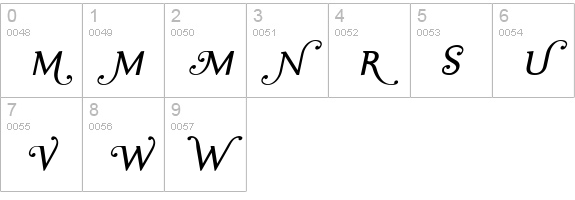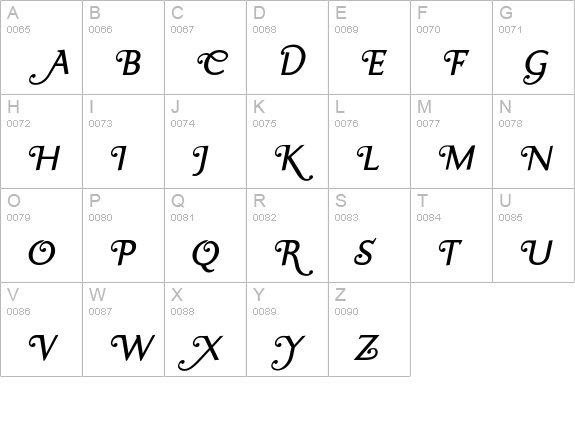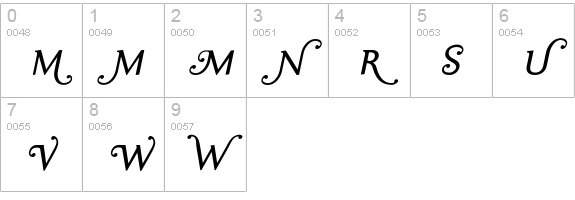
Ela Swashes Plain Italic PDF Font Details
Ela Swashes Plain Italic PDF is a distinctive, italic variant in the Ela typeface family \xE2\x80\x94 well suited to design and typography projects.
Ela Swashes Plain Italic PDF font is a beautifully designed typeface that exudes elegance and sophistication. Its delicate swashes and graceful curves make it perfect for adding a touch of refinement to any project. This font is versatile and can be used for various purposes, from invitations to branding materials. The best part is that Ela Swashes Plain Italic PDF font is available for free download at FontsMarket.com. So you can elevate your designs without any cost, making it a must-have addition to your font collection. Don't miss out on this stunning font that will surely make your projects stand out. Download it now and add a touch of class to your work!